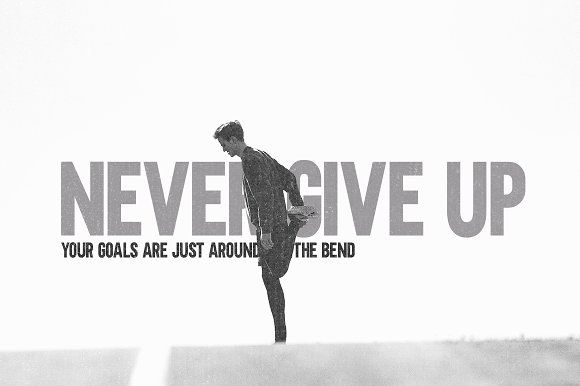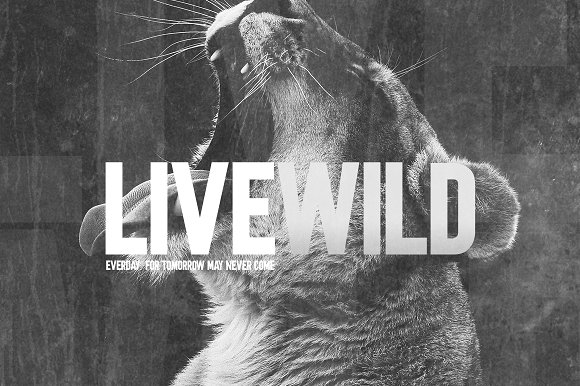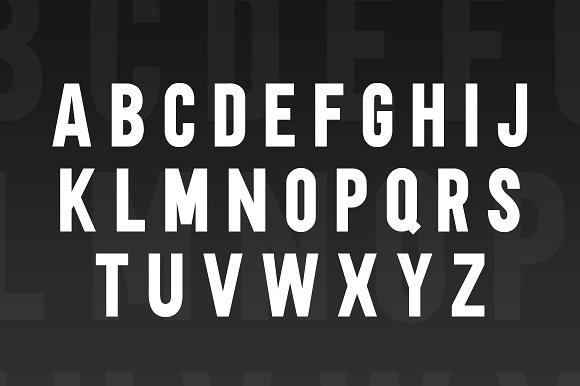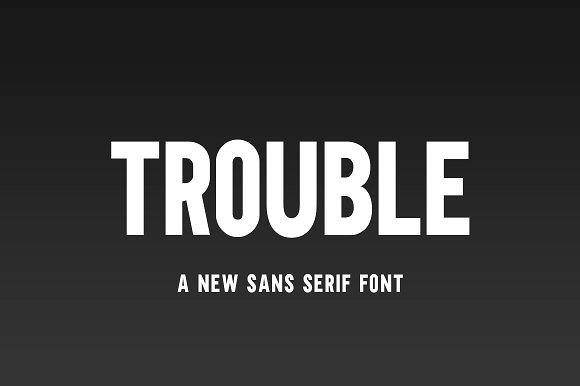
Trouble Font
Trouble, the new sans font from Salt and Pepper Designs will give you anything but! It’s able to add a little bang and sophistication to your work and also hold its own around those pretty scripts! Enjoy!